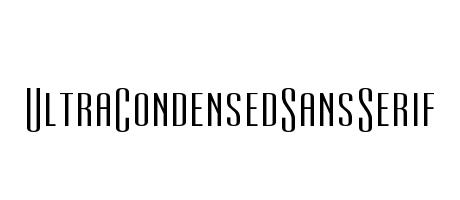
UltraCondensedSansSerif
Category Sans-serif, Condensed, Thin
UltraCondensedSansSerif: A tightly packed, minimalist sans-serif font. Its slender, vertical strokes evoke a sense of sleek modernity and efficiency. Ideal for headlines demanding attention, its ultra-condensed form maximizes space while maintaining readability. A font of precision, perfectly suited for clean, impactful design.